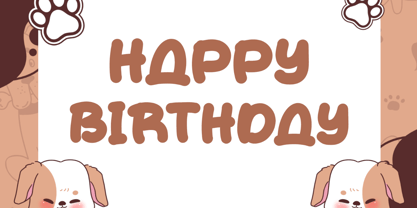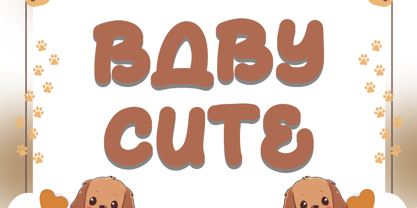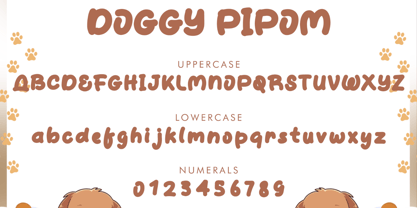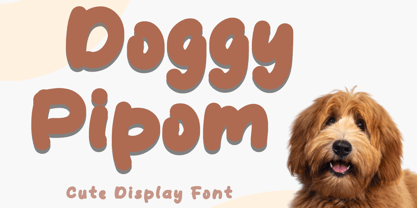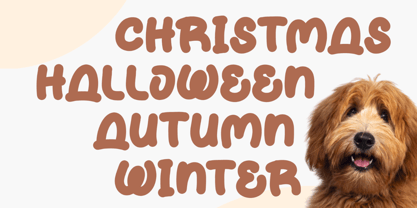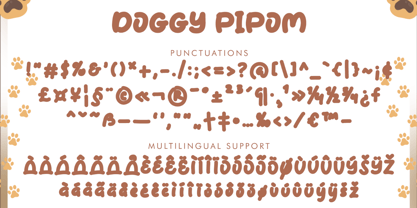
Doggy Pipom
by Yoga Letter
The Doggy Pipom Font Family was designed by Isroni Yoga Prasetya and published by Yoga Letter. Doggy Pipom contains 1 styles. More about this family
"Doggy Pipom" is a cute and adorable display font. It features uppercase and lowercase letters, numerals, punctuations, and multilingual support. It's perfect for comics, pets, funny movies, animations, posters, banners, posters, branding, stickers, Christmas, Halloween, winter, birthday, party, autumn, fall, spring, summer, holidays, magazines, and more.
Designers: Isroni Yoga Prasetya
Foundry: Yoga Letter